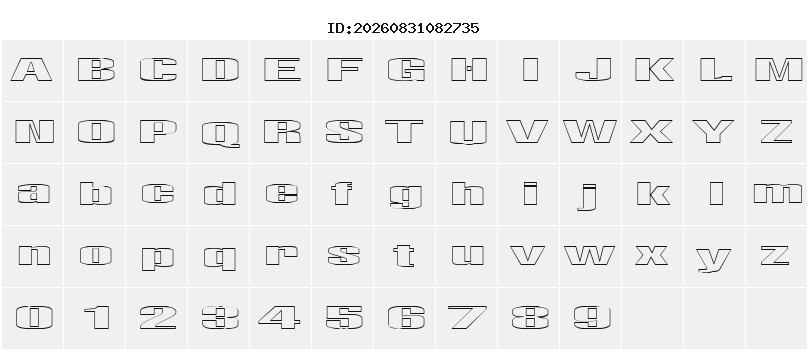
Telford Hollow Preview
• Font Name: Telford Hollow
• Full Font Name: Telford Hollow
About Telford Hollow.ttf
Telford Hollow.ttf is a modern, elegant sans-serif font designed for ultimate readability and visual harmony. Perfect for branding, headlines, web design, and print materials.